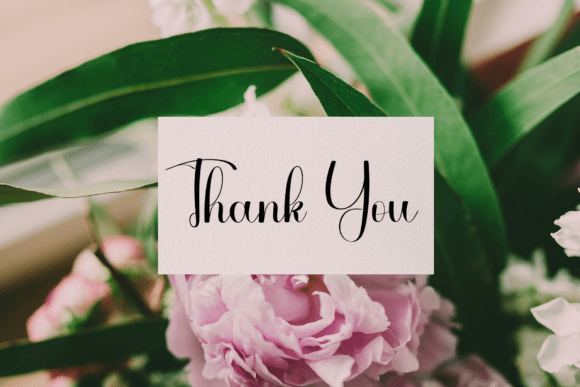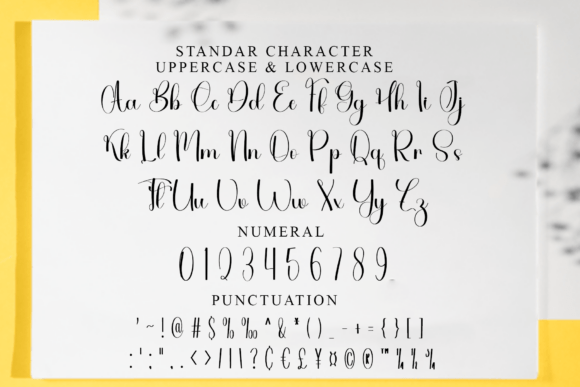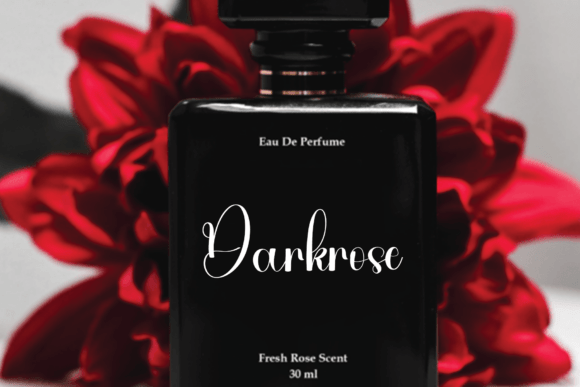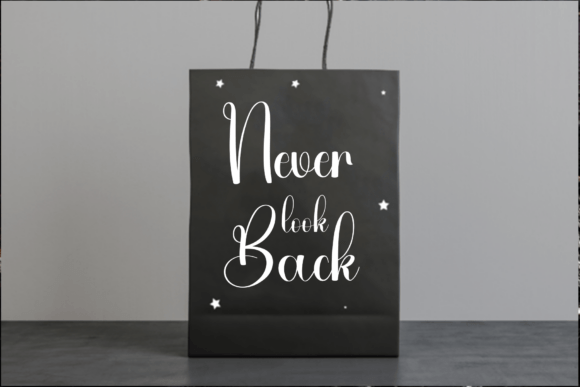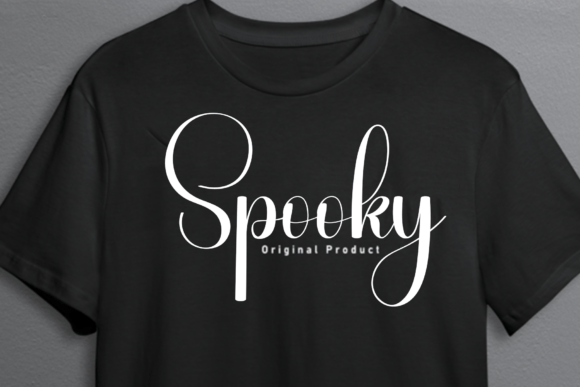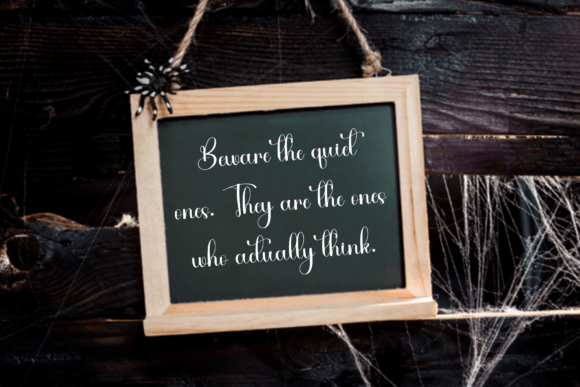
Introduction to Cute Signature Font Font
Fonts play a crucial role in design, and the Cute Signature Font font is a typeface that brings both character and versatility to any project. Whether you’re working on a branding project, a website, or a print design, the Cute Signature Font font offers a unique style that can elevate your work.
Add a touch of personalized elegance to your creative projects with Cute Signature, a modern calligraphy font that perfectly balances casual charm with professional grace.
This typeface is an ideal choice for boutique branding, wedding stationery, personalized social media content, and chic product packaging Whether you are designing a logo for an artisanal brand or crafting a heartfelt invitation, Cute Signature delivers a sense of intimate beauty and effortless sophistication to every word.
Key Features of Cute Signature Font Font
Why Choose Cute Signature Font Font?
The Cute Signature Font font is more than just a typeface – it’s a design tool that helps you communicate your message with style and clarity. Its unique character set and versatile design make it suitable for a wide range of applications, from elegant invitations to bold headlines.
With its carefully crafted letterforms and balanced proportions, the Cute Signature Font font ensures readability and visual appeal across all mediums.
What makes Cute Signature Font font special?
The Cute Signature Font font stands out with its unique design, exceptional readability, and versatility across various design applications.